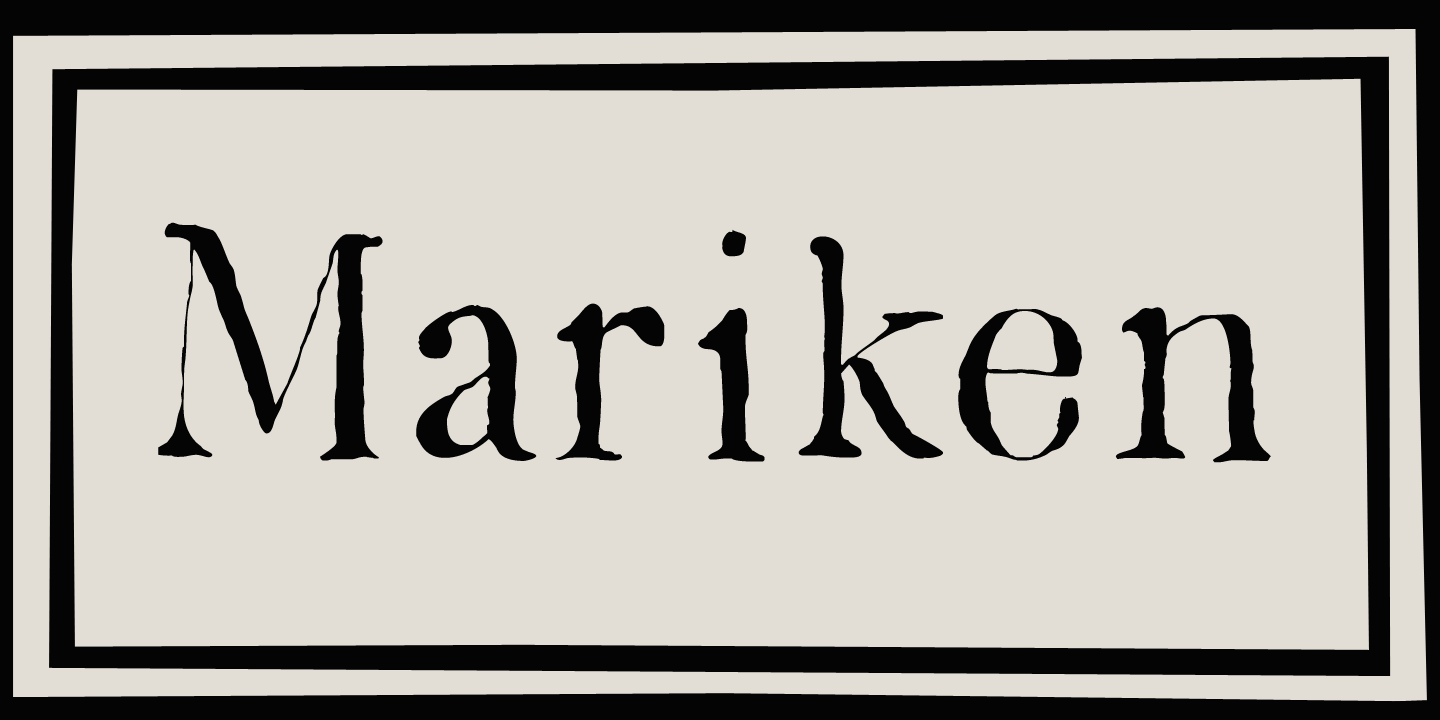
Mariken Font is perfect for Dutch cultural institutions, European heritage projects, maritime history museums, traditional Dutch restaurant branding, Netherlands tourism materials, cultural exchange programs, historical manuscript reproductions, and authentic Dutch design applications.
What makes Mariken Font exciting is its Dutch heritage authenticity that embodies the cultural richness and historical depth of Netherlands typography through carefully crafted, traditional letterforms. This distinguished typeface features classical Dutch proportions with regional influences that evoke the scholarly excellence and maritime heritage of Dutch design traditions, making it ideal for projects requiring authentic Dutch cultural sensibility and European heritage representation in their cultural communications.
The Mariken Font family includes regular and bold weights, plus traditional Dutch decorative elements and European character support that enhance the cultural aesthetic with authentic Netherlands styling and regional typography elements for heritage applications.
This prestigious typeface delivers exceptional Dutch cultural authenticity and European sophistication, making Mariken Font Free Download a valuable resource for Dutch cultural and educational projects. The font's heritage character makes it perfect for organizations wanting to convey Dutch tradition and European cultural excellence in their materials. Dutch museums and cultural centers particularly appreciate its ability to communicate authentic regional identity and maritime heritage instantly to international audiences. The traditionally designed letterforms ensure excellent readability while preserving the dignified appeal of Dutch design traditions across all applications from cultural exhibitions to tourism materials. Whether you're creating materials for Dutch Golden Age exhibitions or developing branding for Netherlands cultural heritage sites, this font provides the perfect combination of regional authenticity and contemporary presentation. Creative professionals consistently choose this typeface for projects requiring that ideal balance of Dutch heritage and modern European design standards, making it essential for cultural communications that celebrate both Netherlands tradition and international cultural exchange in today's globally connected heritage preservation landscape.